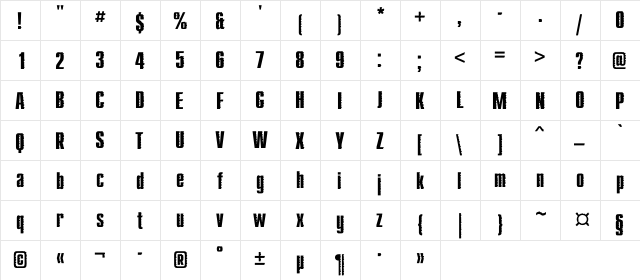
CompactWindC Regular
Design Context for CompactWindC Typeface
CompactWindC takes a measured approach to typography — its balanced proportions and neutral character make it a reliable workhorse for both digital and print work. The condensed width makes it efficient for tight spaces without sacrificing legibility.